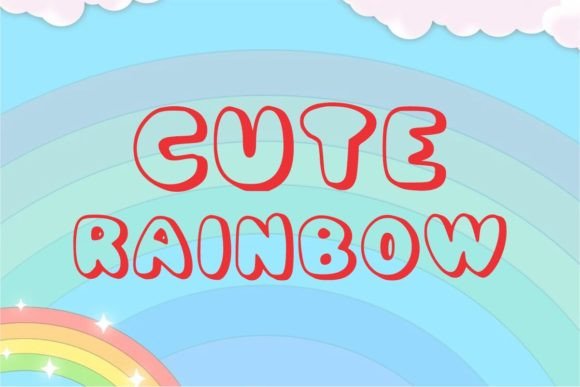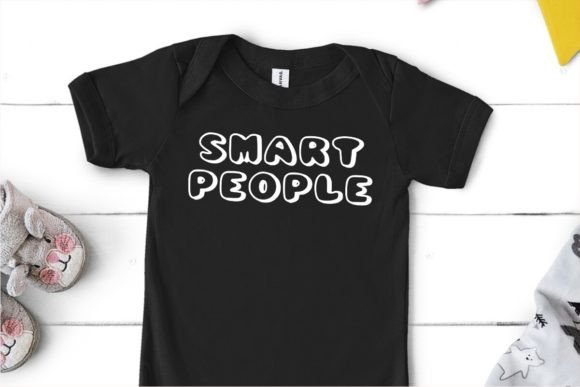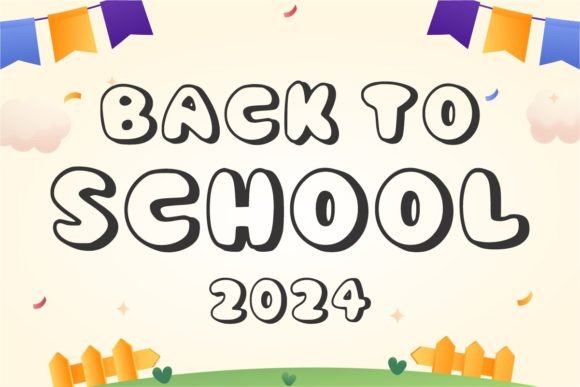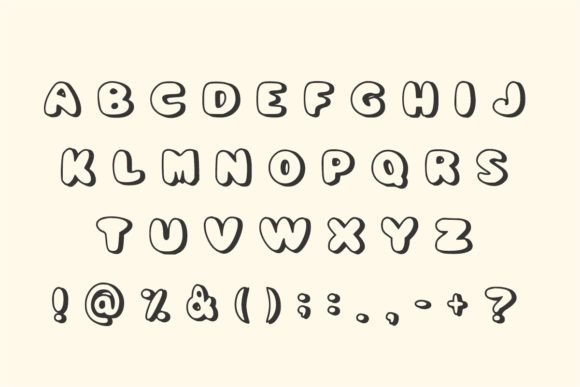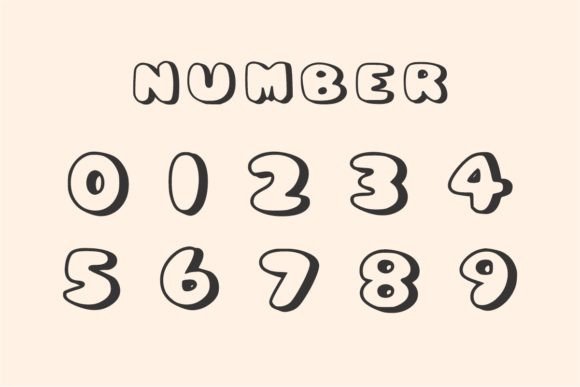
Sparking Creativity with Holly Bony Font
Have you ever been brainstorming a new design project and suddenly, the perfect font pops into your head? That’s exactly what happened to many designers when they discovered the Holly Bony Font. This charming display font is a game-changer for any project that needs a touch of whimsy and fun.
Holly Bony Font is designed to bring joy and excitement to your designs. Its bright and playful style makes it a perfect fit for children-themed projects, such as nursery decor, kids’ clothing, or educational materials. When combined with pastel colors, this font truly comes alive and adds a magical touch to any design. For designers, the Holly Bony Font is a valuable asset that can elevate their creative ideas and make them stand out in a crowded market.
Holly Bony Font Key Features
- Font Family: Holly Bony Font is a sans-serif font family.
- Character Set: Supports a wide range of languages, including Latin, Cyrillic, and Greek.
- Size and Resolution: Available in various font sizes, ranging from 8 to 72 points, with a resolution of 300 DPI.
- Unique Characteristics: Holly Bony Font features a unique blend of modern and minimalist design elements, making it suitable for a variety of applications, including branding, advertising, and editorial design.
Holly Bony Font Review
I recently had the chance to work with the Holly Bony Font, and I must say it’s a unique and quirky addition to any design project. ✨ One of the things that stood out to me was its high level of expressiveness, making it perfect for capturing a sense of playfulness and whimsy in your designs.
Some of the things that work well with this font include:
- Expressive and emotive characters
- Highly customizable with a wide range of font sizes and styles
- Perfect for use in children’s books, magazine titles, and other projects that require a touch of whimsy
- Not ideal for use in formal or professional settings
- May be difficult to read at small font sizes due to its complex character set
- Not as versatile as some other fonts, with limited use cases beyond playful and whimsical designs
Overall, I think the Holly Bony Font is a fun and creative addition to any design project. While it may not be the best choice for every situation, it’s a great option for designers looking to add a touch of playfulness and whimsy to their work. ⚠️ Just be sure to use it thoughtfully and in the right context.
Tips for Getting the Most Out of Holly Bony Font
Use Holly Bony Font for decorative headings and titles to add a touch of elegance to your designs.
Combine Holly Bony Font with other fonts to create a unique and eye-catching design.
Holly Bony Font is ideal for use in:
Fashion and beauty branding
Luxury product packaging
High-end event design
Alternatives to Holly Bony Font
Great Vibes is a beautiful, elegant script font perfect for creating a sense of sophistication and luxury. It’s ideal for use in branding, packaging, and advertising where a high-end feel is desired. Compared to Holly Bony Font, Great Vibes has a more refined and polished look, making it suitable for formal applications.
Alex Brush is a handwritten font with a personal and creative touch. It’s perfect for use in editorial design, social media, and marketing materials where a friendly and approachable tone is desired. Compared to Holly Bony Font, Alex Brush has a more relaxed and casual feel, making it suitable for informal applications.
Dancing Script is a dynamic and energetic font perfect for creating a sense of excitement and movement. It’s ideal for use in advertising, promotions, and events where a lively and attention-grabbing feel is desired. Compared to Holly Bony Font, Dancing Script has a more playful and energetic vibe, making it suitable for applications where a sense of fun and adventure is desired.
Q: What is the recommended font size for optimal readability with Holly Bony Font?
The recommended font size for optimal readability with Holly Bony Font is between 12pt and 24pt. This range allows for clear and legible text while maintaining the font’s unique characteristics. However, the ideal font size may vary depending on the specific design application and intended use.